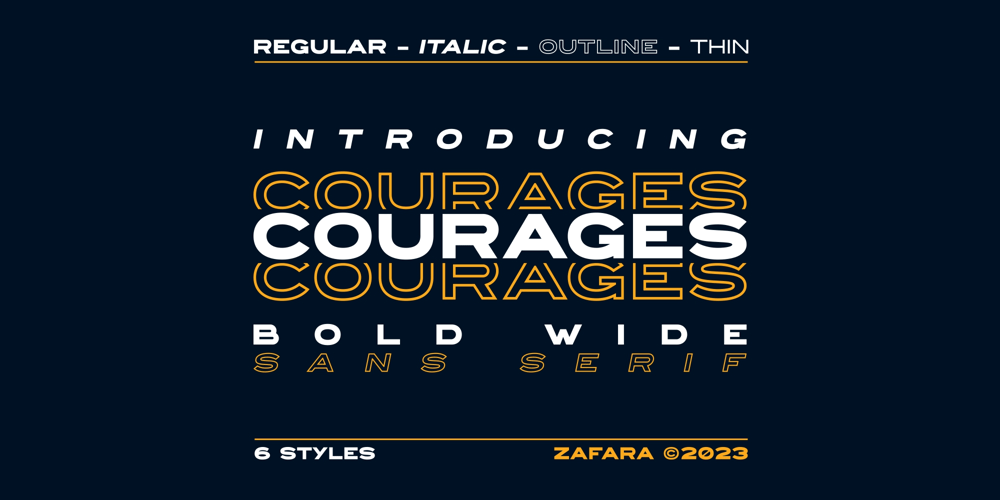
Courages Font Family was designed by Zohan Nur Muchlis and published by Zafara Studios. Courages contains 6 styles and family package options. Courages font is a font with thick and wide strokes. This font can be used for headlines, titles, logotypes, magazines, and other types of text that need to be visible and easy to read. This font can also be used to create a sense of impact or drama in a design.The details:- 118 Glyphs: Uppercase, Numbers, Punctuation, Language Support- 6 Styles (Thin + Italic, Regular + Italic, Regular outline + Italic)- Language Support: Danish, English, French, German, Irish, Italian, Portuguese, Spanish, Swedish, & Swiss German.